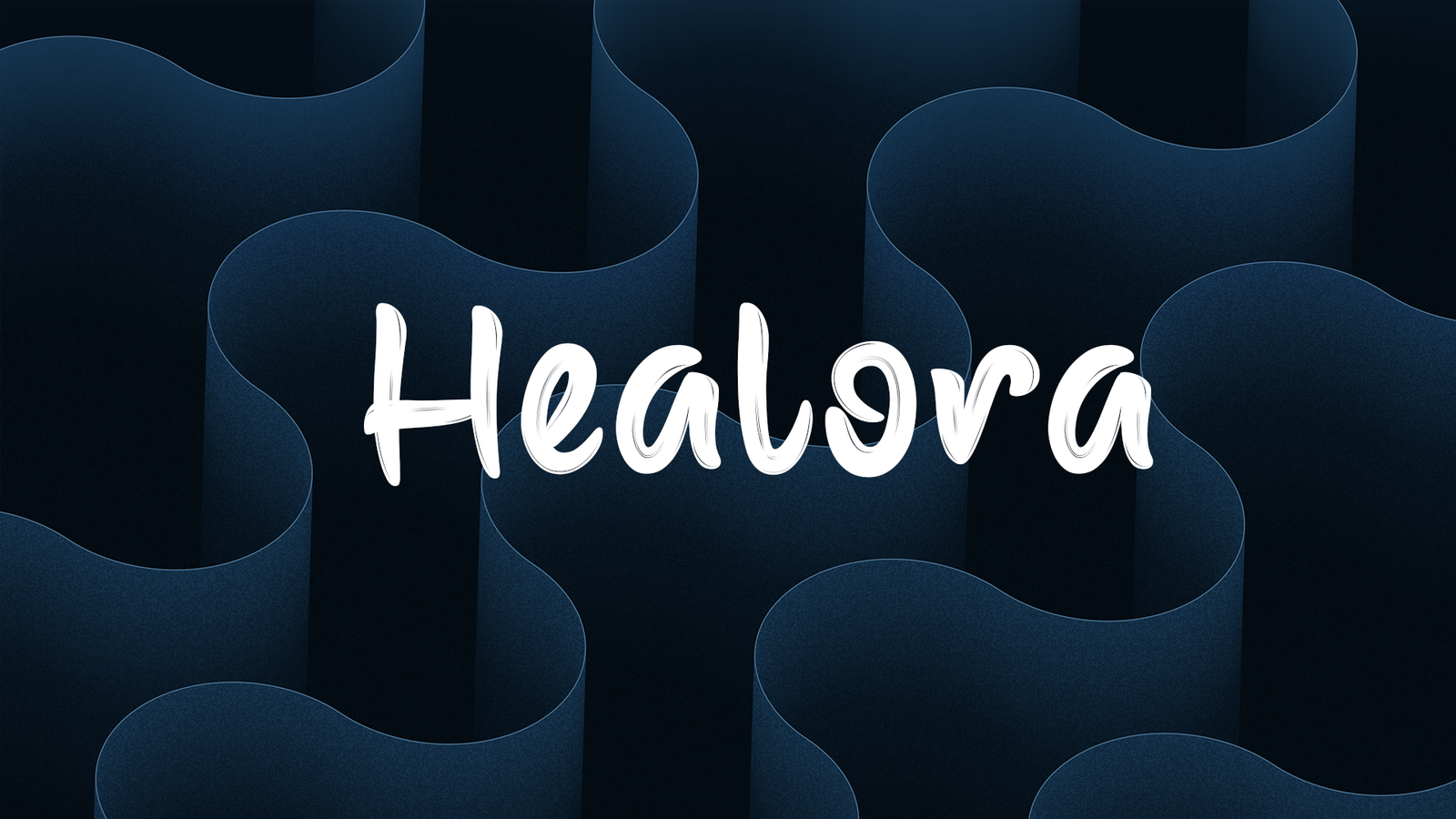
Modern fonts blend clean lines and contemporary aesthetics, making them ideal for web design, branding, and digital media. These fonts often feature minimalistic letterforms, geometric structures, and excellent readability. Popular choices include **Montserrat**, known for its sleek and professional appearance, **Poppins**, with its balanced proportions, and **Raleway**, which adds elegance to typography. Sans-serif fonts dominate modern design, offering a fresh and uncluttered look. Many free modern fonts are available for commercial use on platforms like Google Fonts and FreezyStock. Whether for logos, presentations, or websites, modern fonts enhance visual appeal and create a strong brand identity. Choosing the right font ensures readability, professionalism, and aesthetic harmony, making typography a crucial element in any creative project.